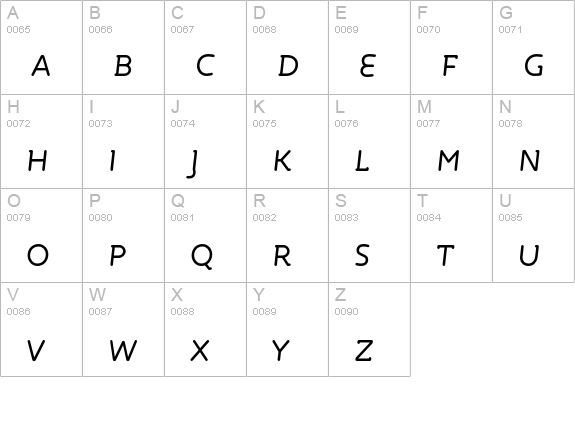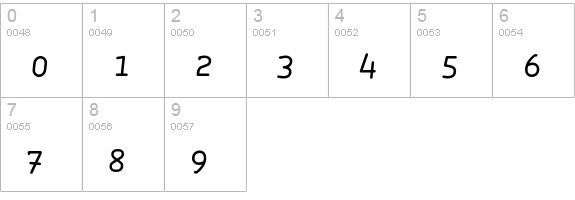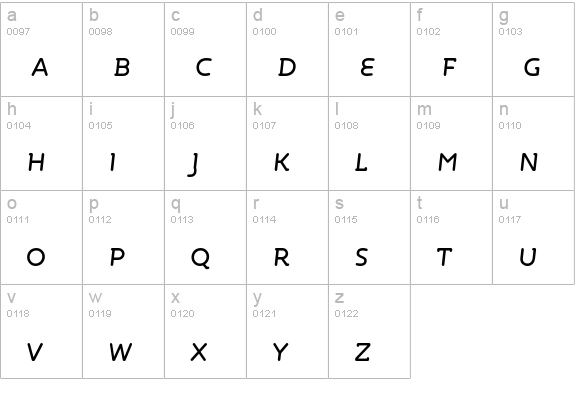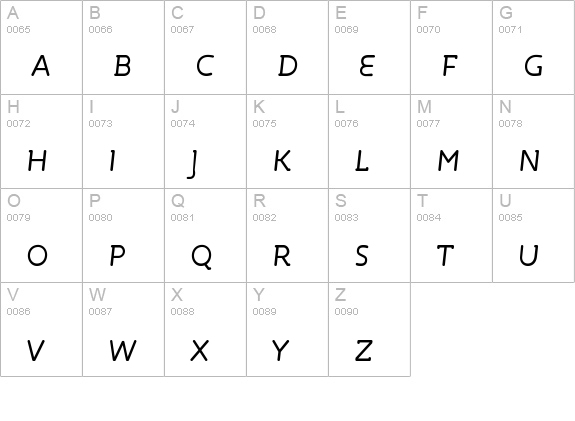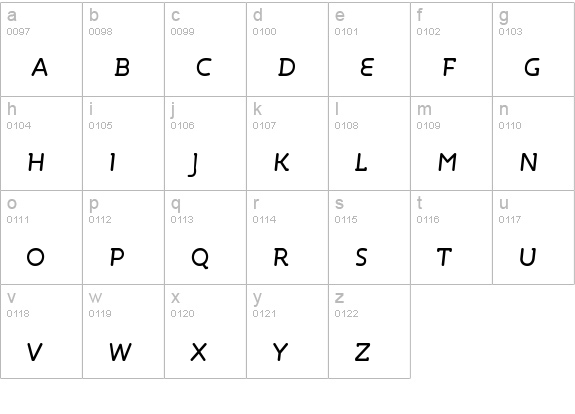
Roice-RegularItalicSC font is a stylish and elegant typeface that exudes sophistication and charm. Its slanted italic design adds a touch of flair to any design project, making it perfect for adding a touch of elegance to your creations. The delicate curves and sleek lines of this font give it a modern and chic appearance that is sure to impress. Best of all, Roice-RegularItalicSC font is available for free download at FontsMarket.com. This means you can easily access this beautiful font and use it in your projects without any cost. Whether you're designing invitations, logos, or any other creative work, Roice-RegularItalicSC font is a versatile choice that will elevate your designs to the next level. Download it today and add a touch of sophistication to your projects!